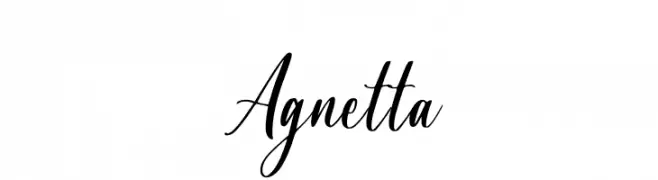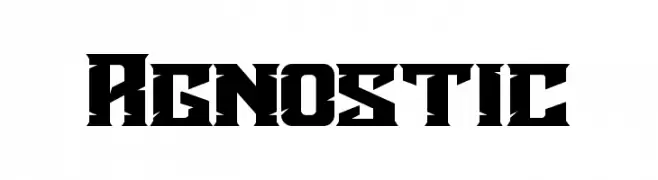
A bold, rounded sans-serif font with a modern and friendly appearance.
A modern, rounded typeface with uniform stroke width and excellent readability.
A modern, geometric sans-serif font with clean lines and rounded edges.
A sleek, ultra-thin font with a modern and elegant design.
A modern, light sans-serif font with rounded edges and excellent legibility.
A modern, rounded sans-serif font with clean lines and uniform strokes.
A thin, geometric sans-serif font with a clean and modern design.
A bold, rounded font with a modern and clean style.
A modern, rounded font with geometric structure and consistent stroke width.
A geometric sans-serif font with a clean, modern design and uniform character width.
A clean, modern font with rounded edges and consistent styling.
A sleek, modern font with thin lines and a minimalist design.
A modern, ultra-light font with geometric shapes and consistent spacing.
A bold, distressed font with a grunge aesthetic and geometric shapes.
A bold serif font with strong strokes and classic design.
A refined serif font with a light weight and elegant design.
A classic serif font with elegant strokes and balanced proportions.
A classic serif font with semi-bold weight and moderate contrast, ideal for professional use.
A bold, modern sans-serif font with geometric structure and excellent readability.
A modern, light sans-serif font with clean lines and excellent readability.
A clean, modern sans-serif font with consistent stroke width and balanced spacing.
A clean, modern sans-serif font with a semi-bold weight and excellent legibility.
A modern, thin sans-serif font with clean lines and elegant proportions.
Festive sans-serif font with snowflake decorations for holiday themes.
A bold slab serif font with strong, block-like serifs and high contrast, ideal for headlines.
A bold, dynamic brush script font with flowing, hand-drawn strokes.
A bold, brush-style font with dynamic, hand-painted strokes.
A bold, textured font with a unique horizontal line design.
A bold, angular font with a modern, geometric style.
A geometric, angular font with a modern and technical style.
A modern, geometric font with thin lines and generous spacing.
A bold, playful font with decorative serifs and a whimsical style.